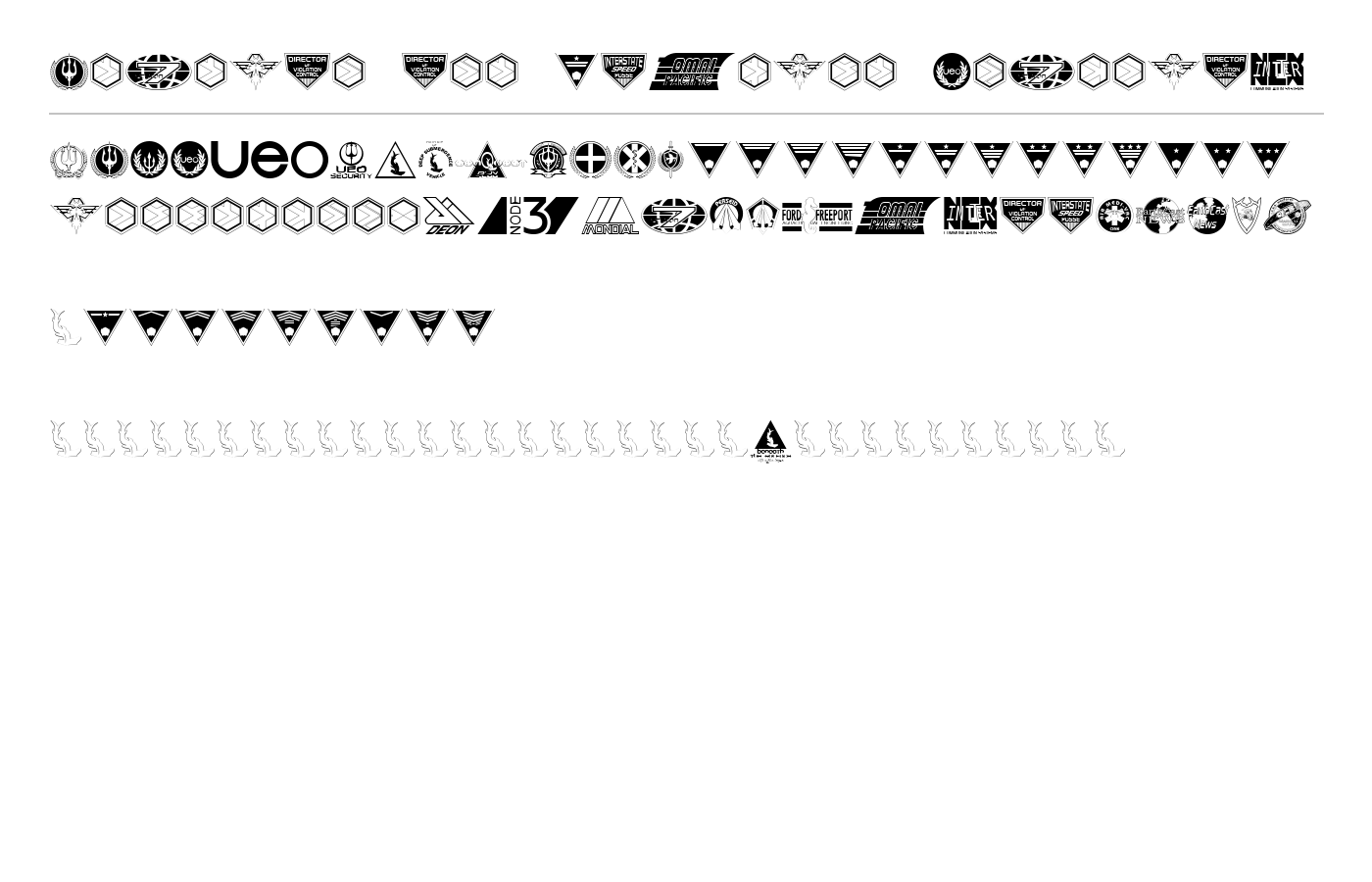
Beneath the Surface Dingbats is a symbol-based font featuring a diverse collection of intricate logos and icon-like designs with a strong sci-fi and industrial vibe. Its bold, detailed glyphs work best for adding visual interest in branding, posters, or editorial projects where a futuristic and technical aesthetic is desired. This font is ideal for designers seeking unique graphic elements rather than traditional text.
Beneath the Surface Dingbats Font
About Beneath the Surface Dingbats Font